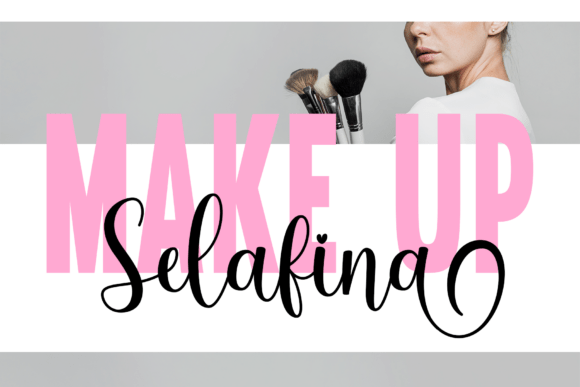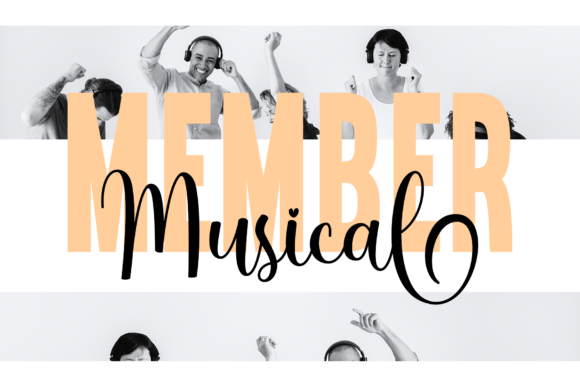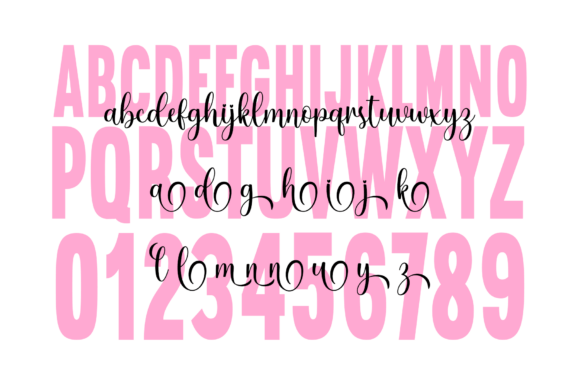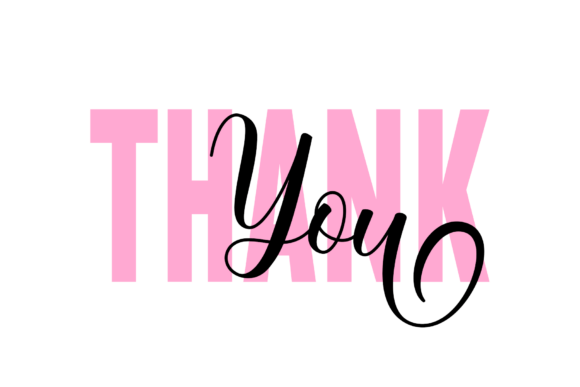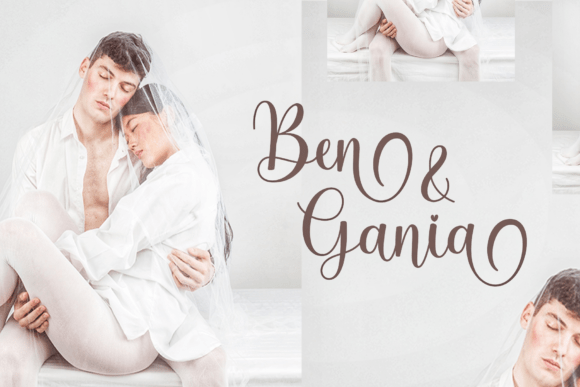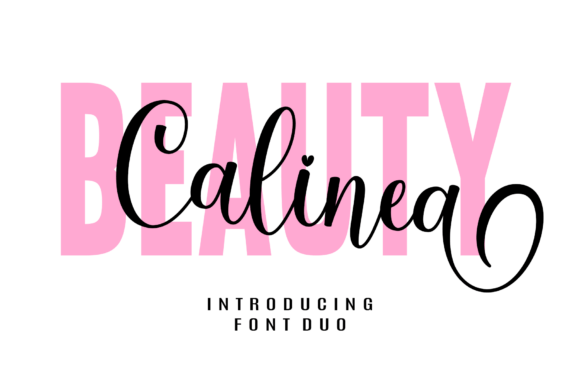
Introducing Beauty Calinea Font: Elevate Your Designs with Elegance and Simplicity
In the world of typography, a font can make or break a design. It’s the foundation upon which creativity is built, and the right choice can elevate a project from ordinary to extraordinary. For designers and crafters seeking a font that embodies both elegance and simplicity, look no further than the Beauty Calinea Font. This stunning font duo perfectly combines the sophistication of a modern script display font with the bold simplicity of a clean sans serif, offering a dynamic balance that’s perfect for a wide range of design applications.
The Calinea Font Duo: A Harmonious Blend of Style and Versatility
At the heart of the Calinea font duo is a beautifully crafted script display font that exudes romance and sophistication. Its flowing, hand-lettered design features graceful curves, subtle stroke contrast, and a playful heart accent in its lettering, adding a touch of whimsy and charm to any design. Paired with its strong, minimalist sans serif partner, the Calinea font duo offers a harmonious blend of style and versatility that’s unmatched in the world of typography.
Elegance and Simplicity: The Perfect Balance
One of the standout features of the Calinea font duo is its ability to balance elegance and simplicity. The script font is perfect for designs that require a touch of sophistication, such as high-end branding, wedding invitations, and luxury packaging. Meanwhile, the clean sans serif font provides a bold and modern contrast that’s ideal for designs that require a strong visual impact, such as social media graphics and advertising.
Design Possibilities are Endless with Calinea
The versatility of the Calinea font duo makes it perfect for a wide range of design applications. Here are just a few examples of what you can create with this amazing font duo:
- High-end branding: Use the Calinea script font to create luxurious brand identities that exude sophistication and elegance.
- Wedding invitations: Add a touch of romance and whimsy to your wedding invitations with the Calinea script font.
- Social media graphics: Use the Calinea sans serif font to create bold and eye-catching social media graphics that grab attention.
- Packaging: Add a touch of luxury to your packaging designs with the Calinea script font.
PUA-Encoded for Effortless Customization
The Calinea font duo is also PUA-encoded, ensuring effortless access to all glyphs, swashes, and alternate characters. This means you can customize your creations with ease, adding your own personal touch to make your designs truly unique.
Why Choose the Calinea Font Duo?
So why choose the Calinea font duo for your design projects? Here are just a few reasons:
- Unique and stylish: The Calinea font duo offers a unique and stylish combination of script and sans serif fonts that’s sure to make your designs stand out.
- Versatile: The Calinea font duo is perfect for a wide range of design applications, from high-end branding to social media graphics.
- Easy to use: The Calinea font duo is PUA-encoded, making it easy to access all glyphs, swashes, and alternate characters.
- High-quality: The Calinea font duo is designed to the highest standards, ensuring that your designs look professional and polished.
In conclusion, the Beauty Calinea Font is a stunning font duo that offers a unique and stylish combination of elegance and simplicity. With its flowing script font and bold sans serif partner, the Calinea font duo is perfect for a wide range of design applications, from high-end branding to social media graphics. Its PUA-encoded design makes it easy to customize and use, and its high-quality design ensures that your projects look professional and polished. Whether you’re a designer or crafter, the Calinea font duo is a must-have addition to your typography collection.